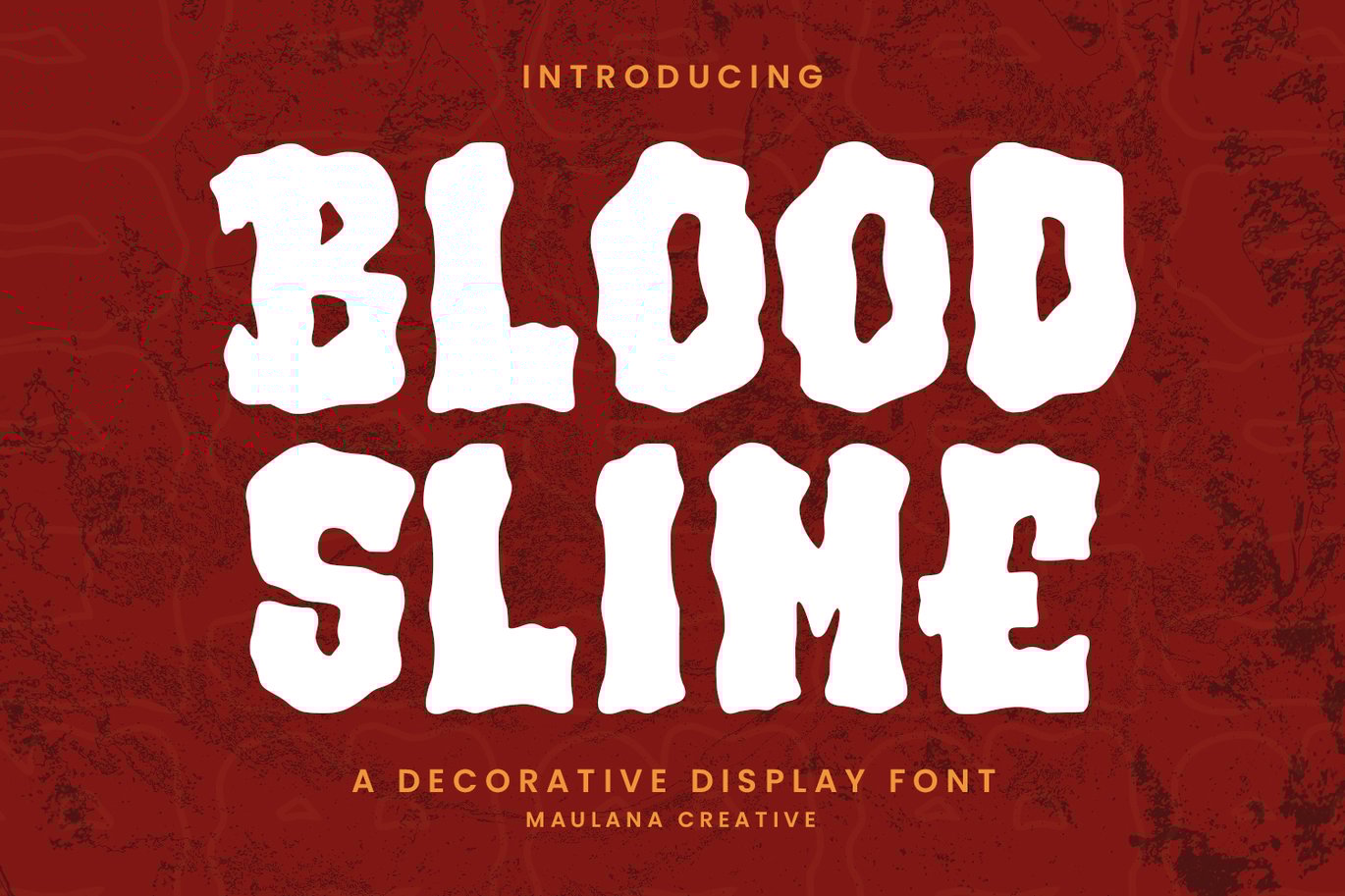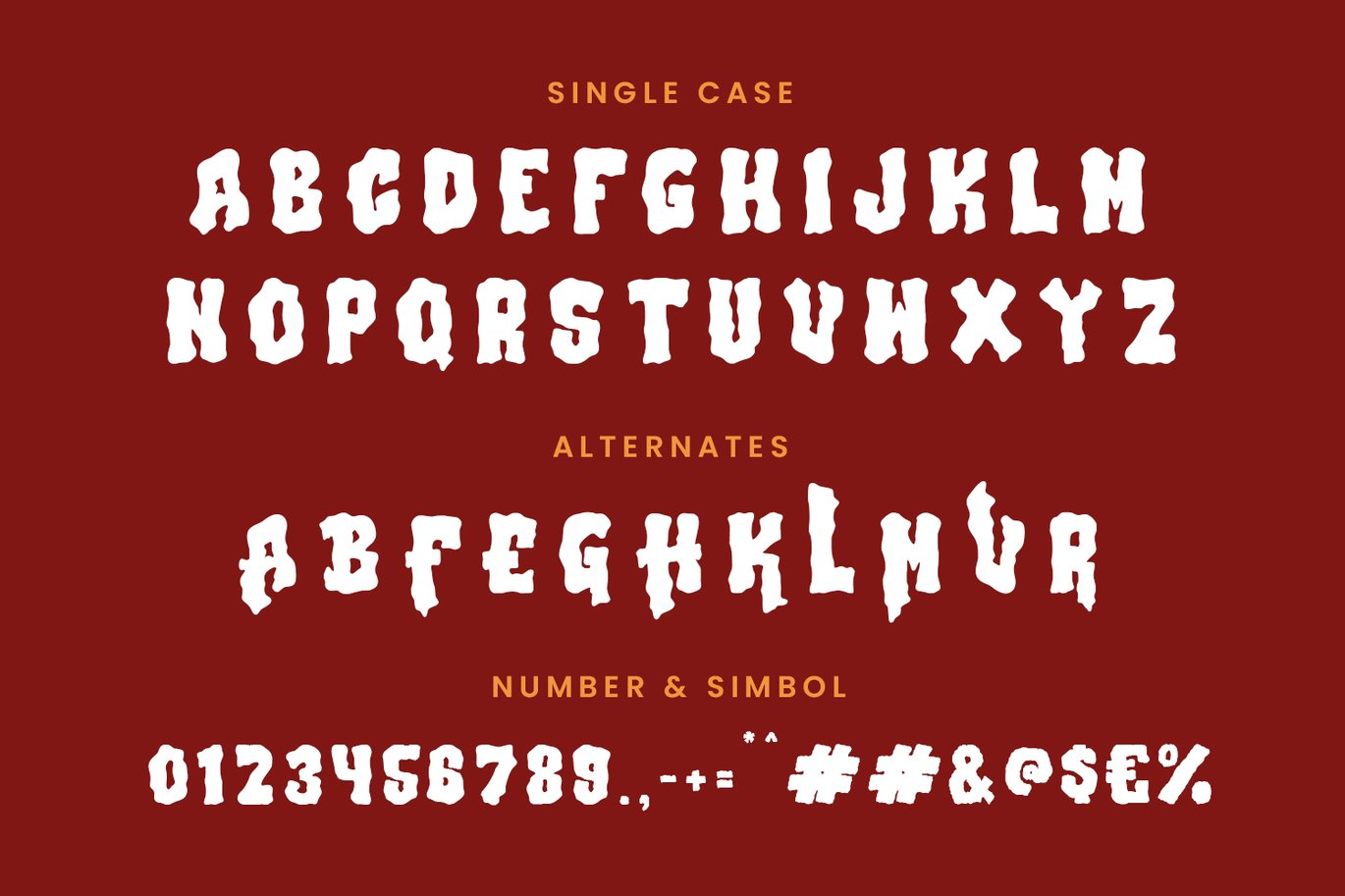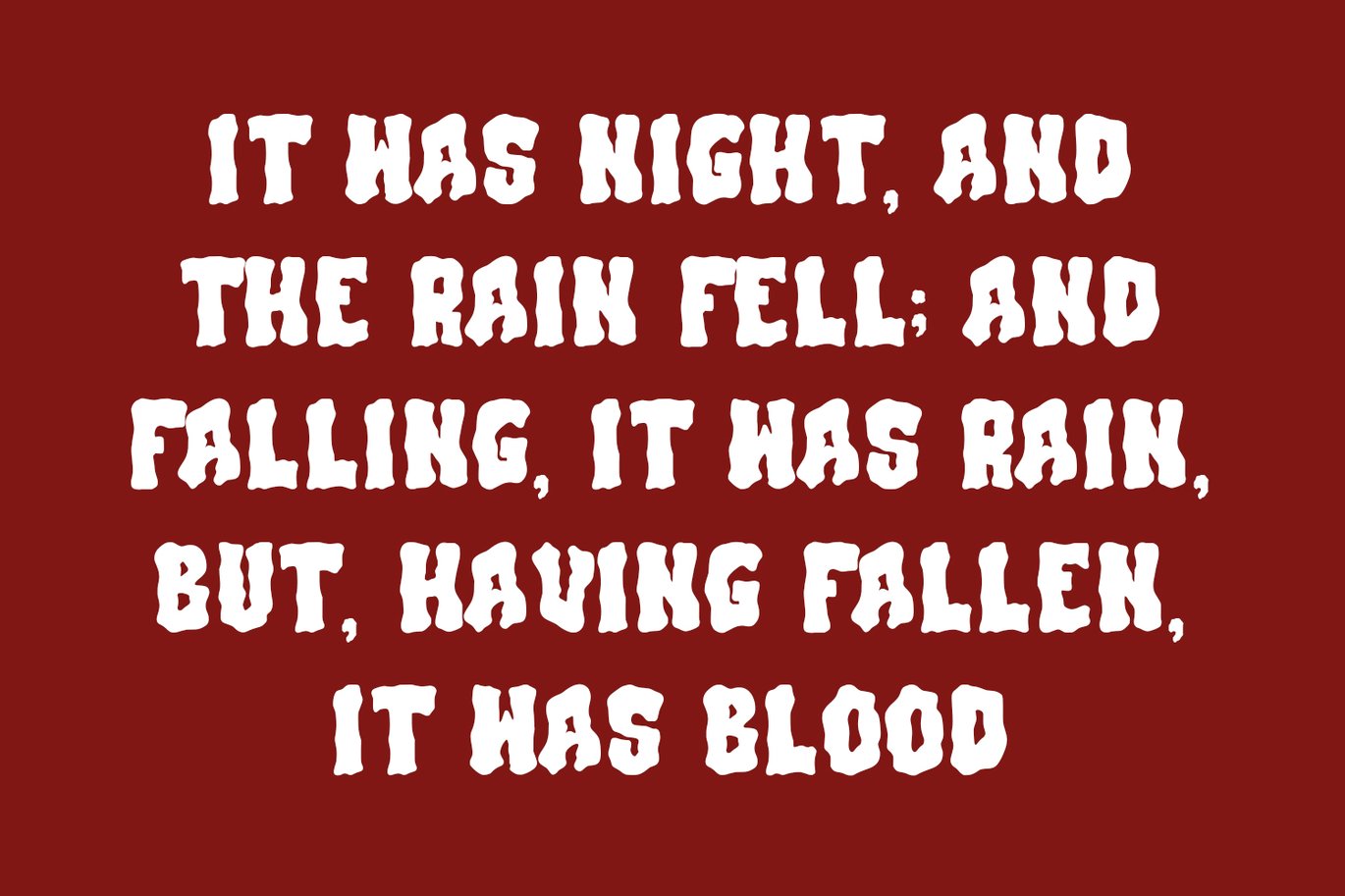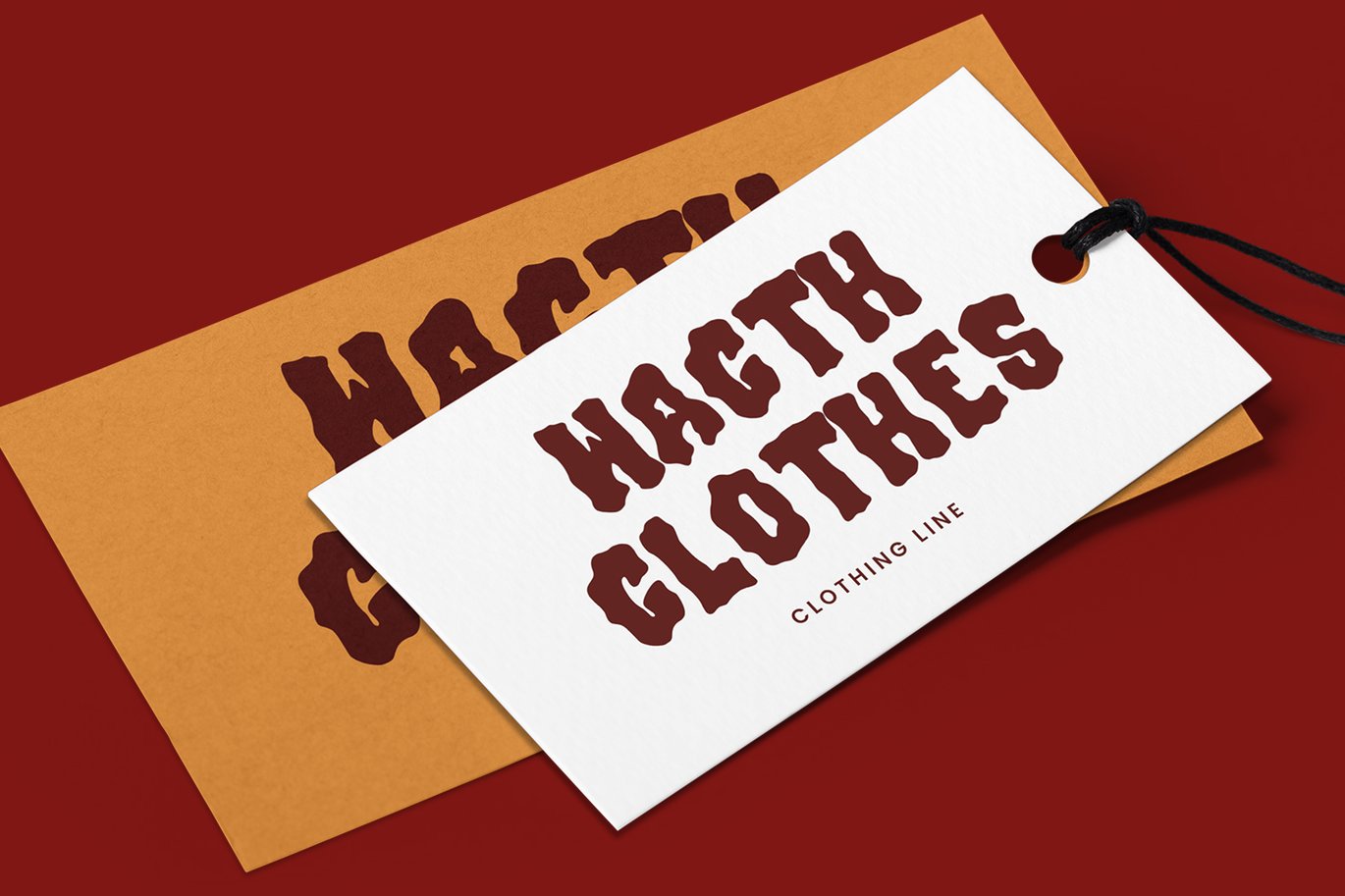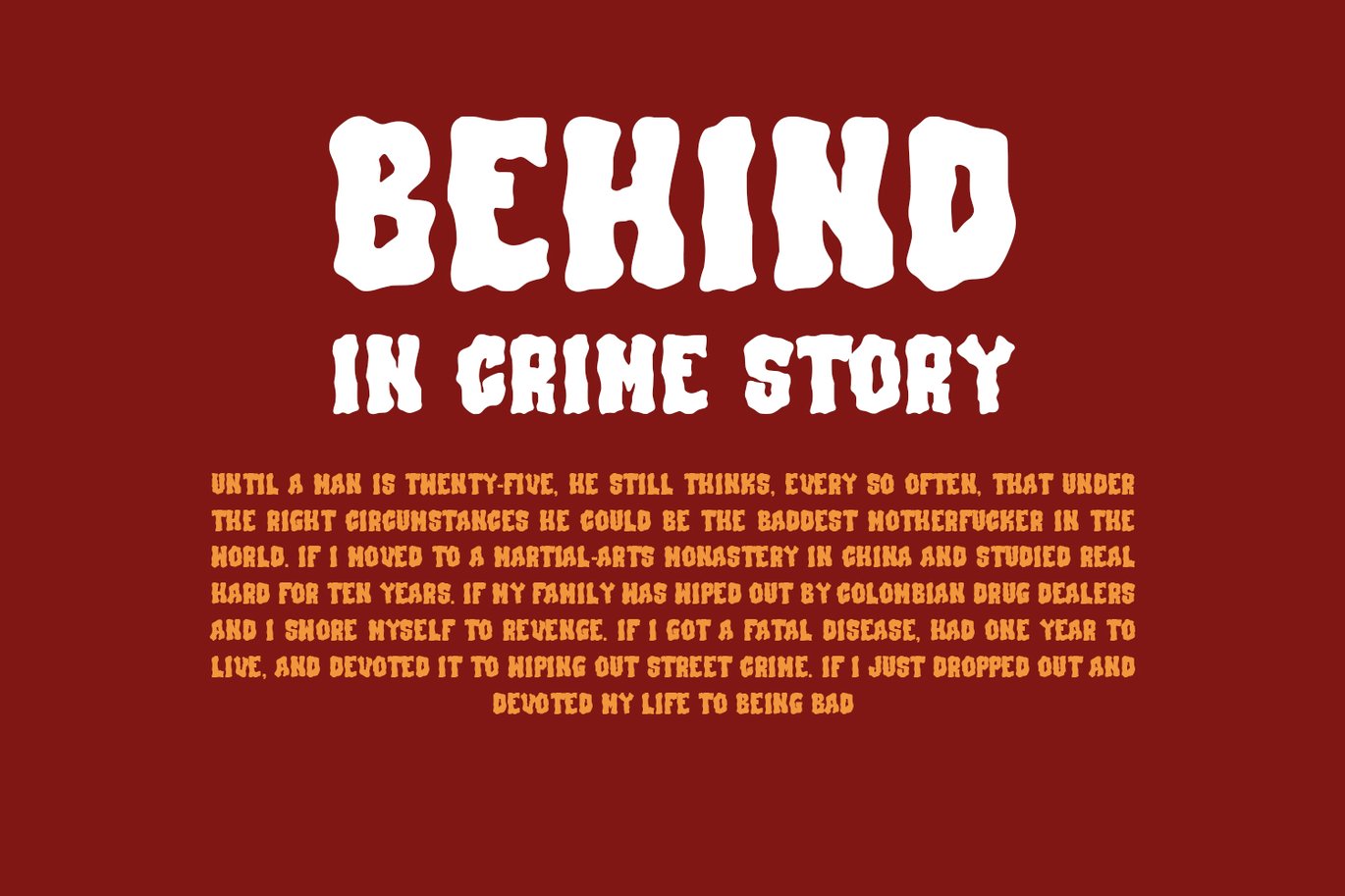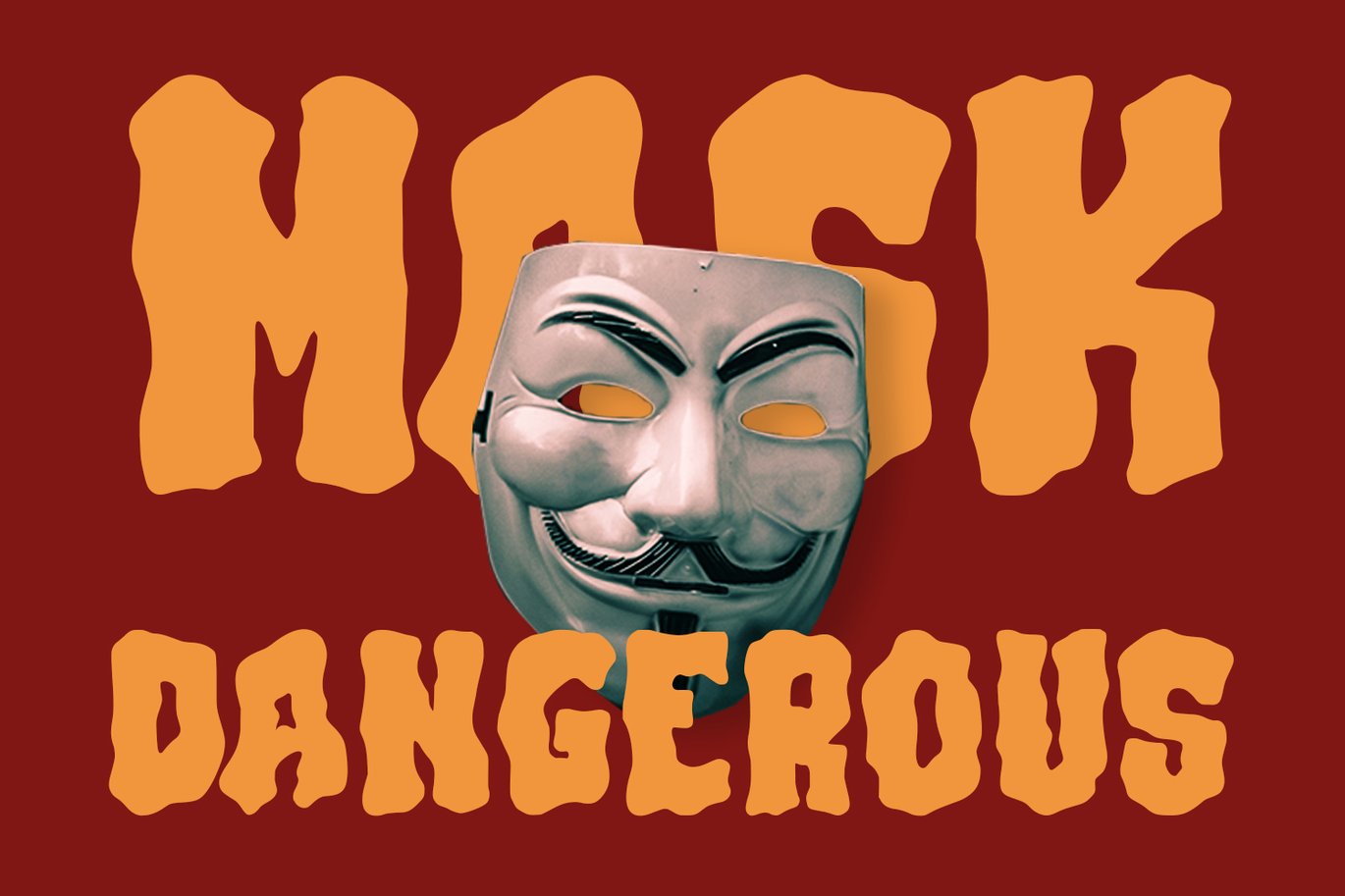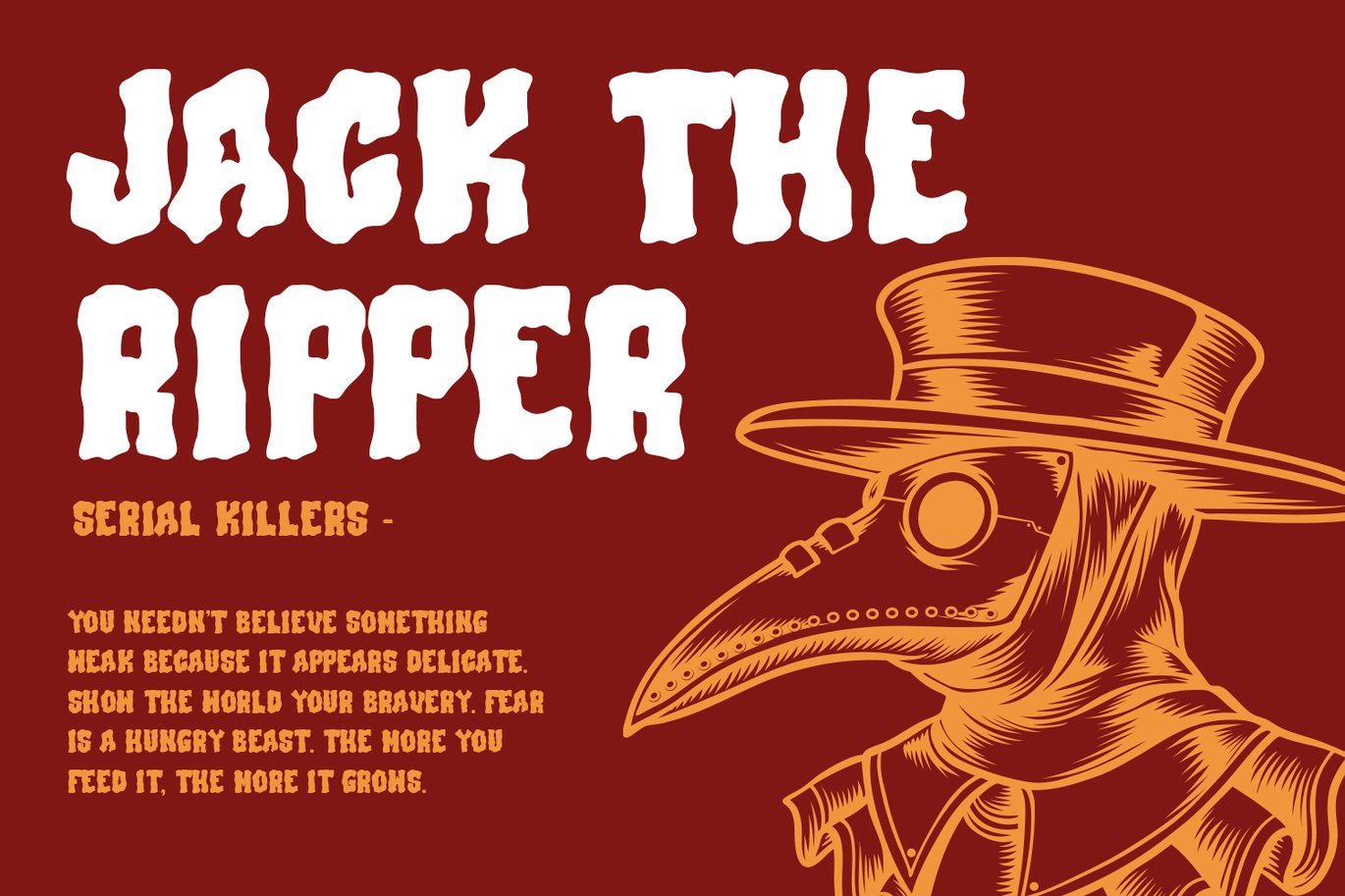
Blood Slime Decorative Display Font
Blood Slime decorative display font. Bold contrast stroke, fun character with a bit of ligatures and alternates. To give you an extra creative work. Blood Slime font support multilingual more than 100+ language. This font is good for logo design, Social media, Movie Titles, Books Titles, a short text even a long text letter and good for your secondary text font with script or serif. Make a stunning work with Blood Slime font.